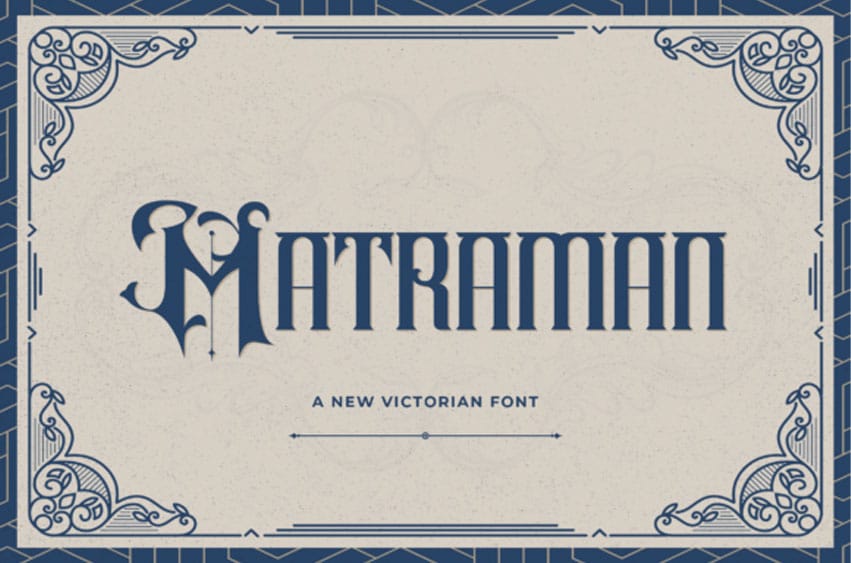
Matraman Font is a new Victorian-style font that blends the elegance of the past with a modern touch. It features ornate uppercase characters reminiscent of the Art Nouveau and Victorian eras, with intricate curves and serifs that create a sophisticated, decorative feel. The lowercase letters are more structured and geometric, providing a clean contrast that makes the font versatile for a variety of uses.
This typeface includes both highly decorative uppercase and more simplified lowercase letters, as well as numbers and a full range of multilingual and symbolic characters. Its decorative and vintage aesthetic makes it perfect for branding, logos, posters, book covers, and other designs that aim for a classic, elegant, and timeless look.